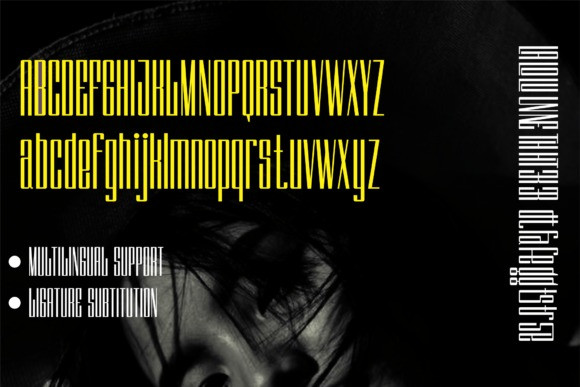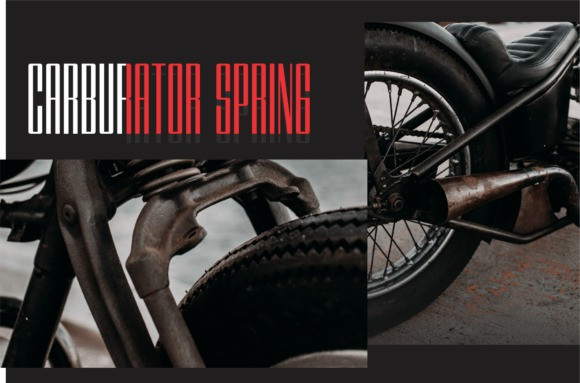
Desire Black Font
Desire Black is a modern condensed sans serif font with bold contrasts. Add it confidently to your creative ideas and you will be astounded by the outcome generated! This font is PUA encoded which means you can access all the glyphs and ligatures with ease!